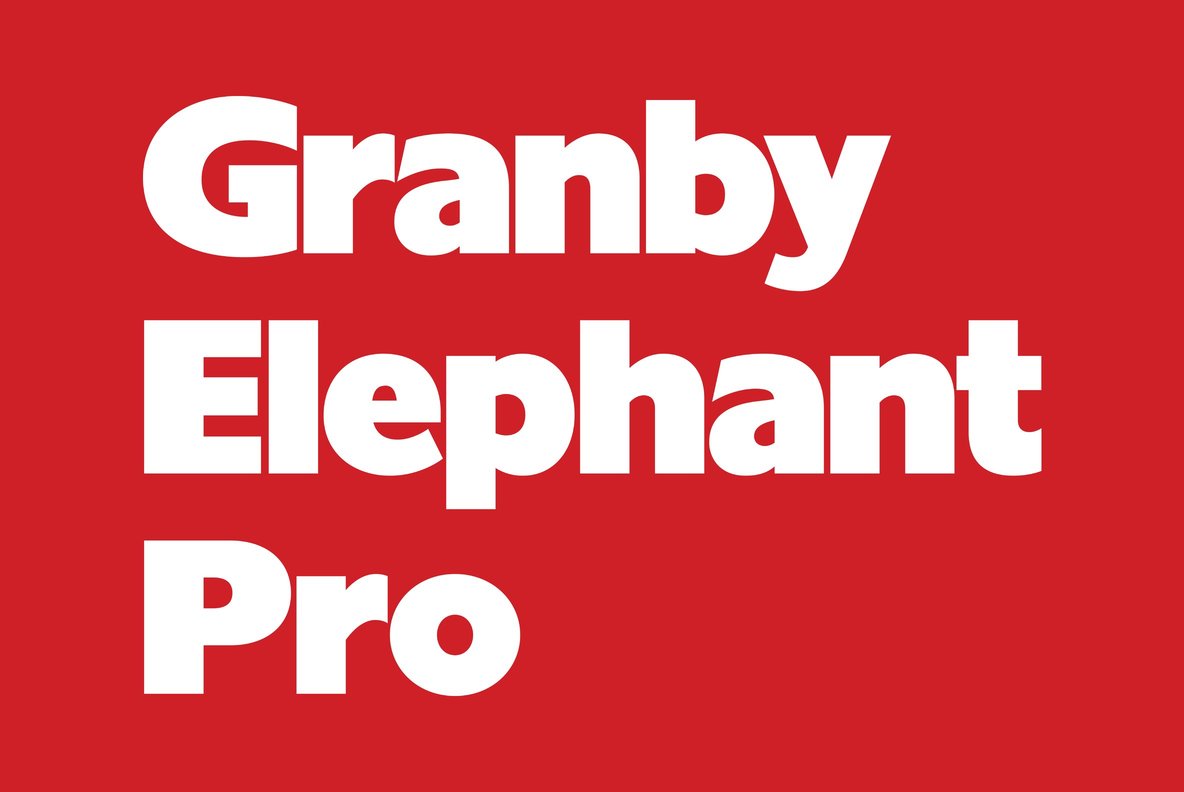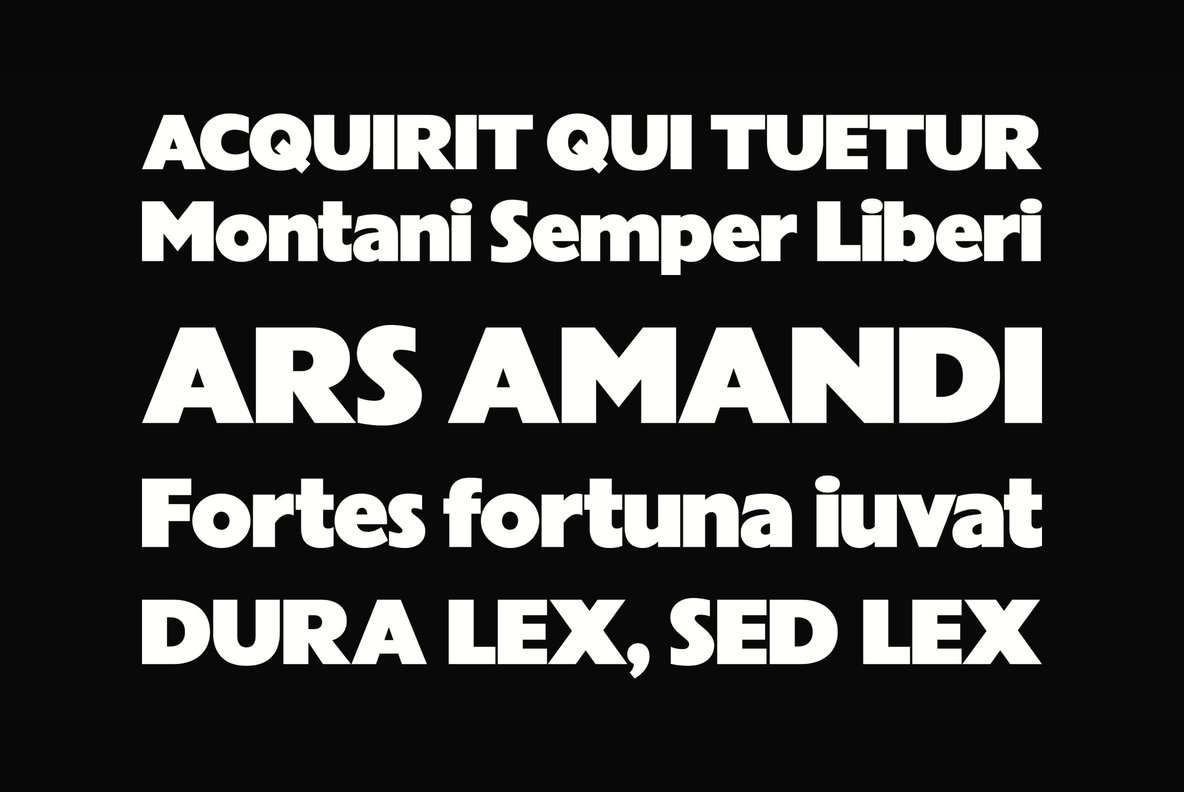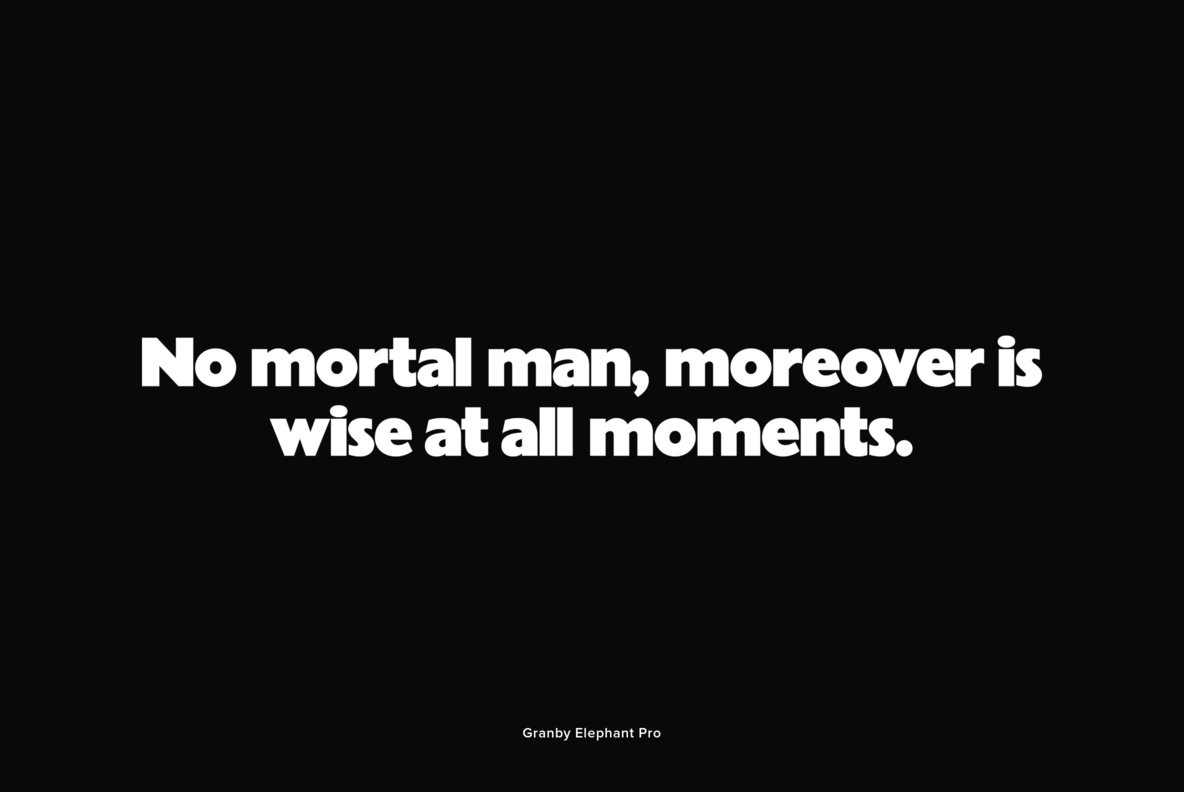
Designed by Steve Jackaman & Ashley Muir. The Granby family of typefaces was first produced in 1930 by Stephenson Blake, Sheffield, UK. Granby Elephant contains all the high-end features expected in a quality OpenType Pro font.